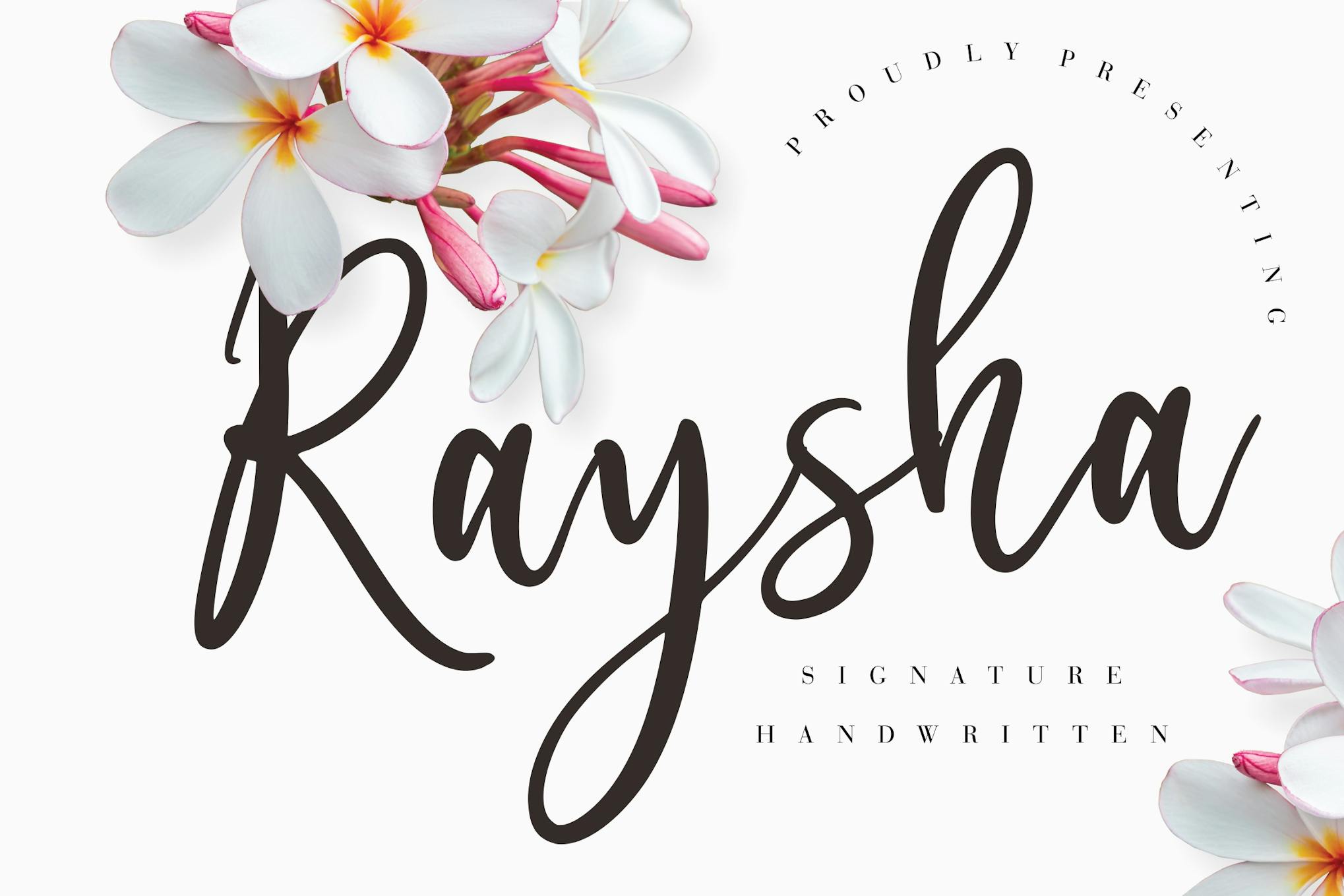
Raysha Signature Wedding Font
The Raysha Signature Wedding Font excels in personal design applications including intimate wedding invitations, personalized bridal branding, custom ceremony logos, bespoke product packaging, personalized business cards, individual portfolios, custom greeting cards, personal social media graphics, intimate event signage, and personalized marketing materials. Its personal script style makes it perfect for projects requiring intimate elegance that communicates individuality and establishes personal brand positioning with audiences seeking personalized wedding experiences and intimate sophistication.
What makes the Raysha Signature Wedding Font genuinely exciting is its exceptional ability to capture the personal beauty and intimate charm of individual weddings through lovingly crafted letterforms. The font features flowing, personal strokes with intimate flourishes and individual proportions that create a distinctly personal appearance. Each character displays remarkable attention to intimate detail with personal curves, individual connections, and custom spacing that give text a beautifully personal, hand-lettered quality. The font's personal character and intimate rhythm create an atmosphere of individual romance while maintaining personal sophistication and wedding authenticity.
The Raysha Signature Wedding Font family typically includes regular weight with extensive character coverage, featuring uppercase and lowercase letters, numerals, punctuation marks, and international characters. The typeface often incorporates stylistic alternates, contextual ligatures, and personal swashes that enhance its signature intimacy. These additional elements provide designers with creative flexibility to customize text appearance and achieve more natural-looking personal handwriting that reflects the font's intimate and individual character.
This personal signature font distinguishes itself through its remarkable balance of intimate charm and sophisticated elegance. Unlike generic or impersonal fonts that lack personal appeal, Raysha Signature Wedding Font embraces the power of individual design to create meaningful connections with personal wedding audiences. The font's intimate character makes it essential for personal wedding planners, individual brands, and custom celebration businesses where creating personal wedding experiences and intimate memories is fundamental to success in personalized wedding markets.